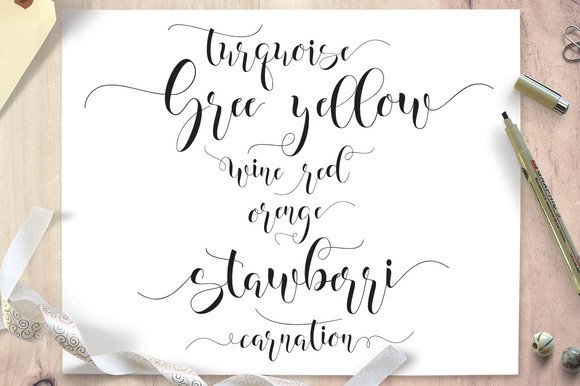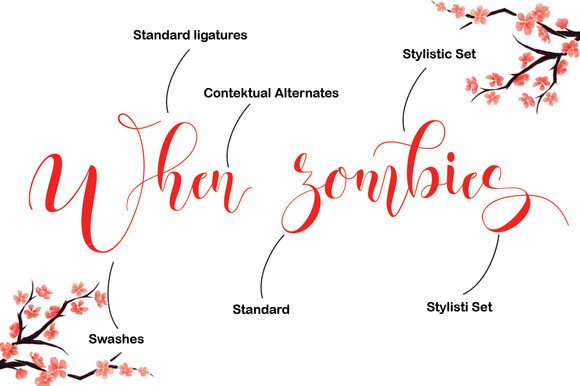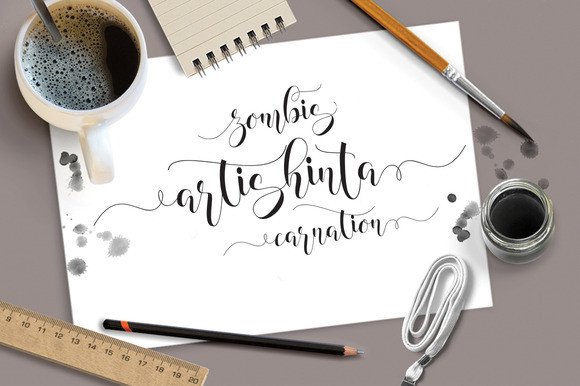
Zombis Night Font
About Zombis Night Font
Zombis Night script is a hand made calligraphy.
This smooth, modern, classic, calligraphy wavy font was created to meet the needs of your next design projects. Zombis Night script can used for various purposes such as titles, signatures, logo’s, correspondences, wedding invitations, letterheads, signage’s, labels, newsletters, posters, badges, etc.
Zombis Night script features 520 glyphs.